Neue Kabel® by Linotype
Marc Schütz, a type design teacher at the University for Art and Design Offenbach, took on the challenge of updating and re-imaging the original Kabel® typeface design. His goal was to create forms that perform well in modern imaging environments while keeping the original Kabel’s character and charm. View the Neue Kabel Video Neue Kabel maintains the spirit of Koch’s design, and adds to this the consistent traits and family structure of a 21st century design. Text copy set in Neue Kabel echoes the elegance and playfulness of Koch’s design, while delivering the versatility to shine in a wide variety of hardcopy and interactive environments.
Perfect Pairings for Neue Kabel
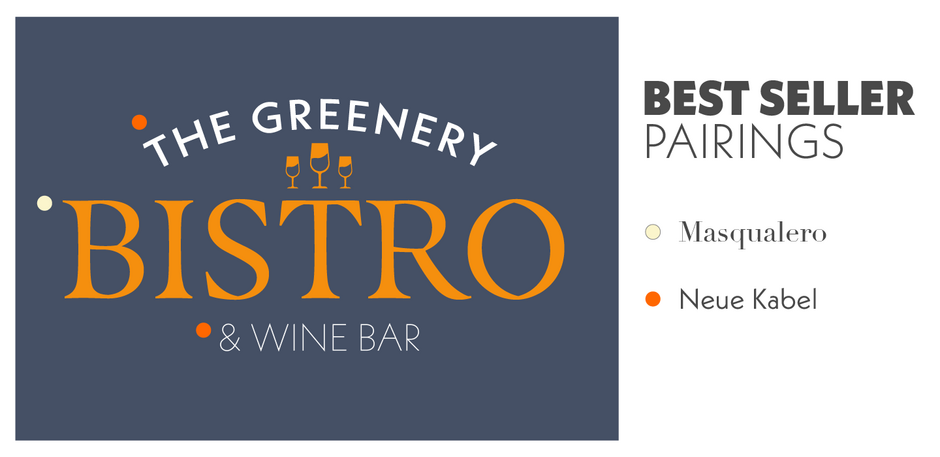
Antique Olive™ by URW Type Foundry
The first Antique Olive fonts were produced by the French type foundry Olive, in 1962-1966 and designed by poster designer Roger Excoffon (1910-1983). All Excoffons fonts are flamboyant, elegant, and highly stylistic. They include the Banco, Mistral, and Calypso fonts.
Antique Olive was launched to rival Helvetica and Univers, but the shapes it took were totally refreshing. Antique Olive is probably the most striking Sans Serif since Futura and Gill, and more refined than either. It is perfect for posters and display material as it works well in larger sizes.
Perfect Pairings for Antique Olive
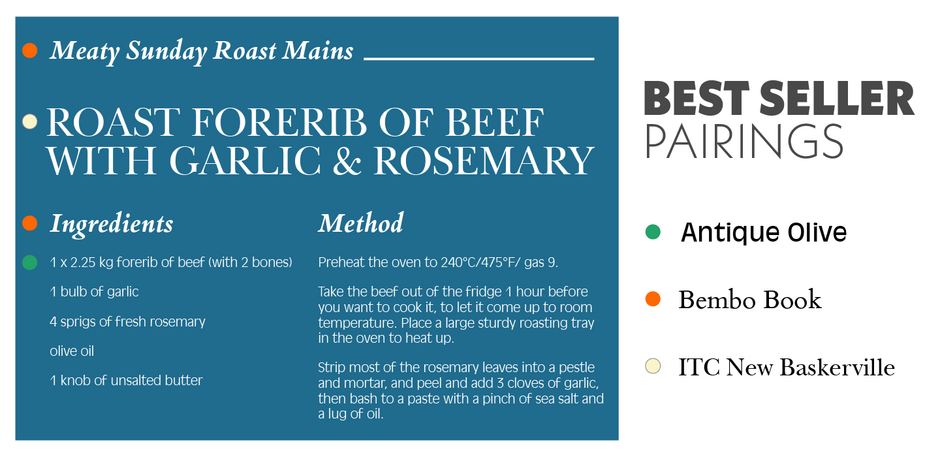
Neue Haas Unica™ by Linotype
The Neue Haas Unica™ family is an extended, reimagined version of the Haas Unica® design, a Helvetica® alternative that achieved near mythical status in the type community before it virtually disappeared. Originally released in 1980 by the Haas Type Foundry and designed by Team ’77 — André Gürtler, Erich Gschwind, and Christian Mengelt— for phototypesetting technology of the day, the design was never successfully updated for today’s digital environments – until now. Toshi Omagari of Monotype Studio has given this classic a fresh, digital facelift with more weights, more languages, and more letters to meet today’s digital and print needs.
A cosmopolitan typeface for today’s modern, discerning design needs, the Neue Haas Unica collection is a new classic in the making—one that every designer should surely have at their disposal.
Perfect Pairings for Neue Haas Unica